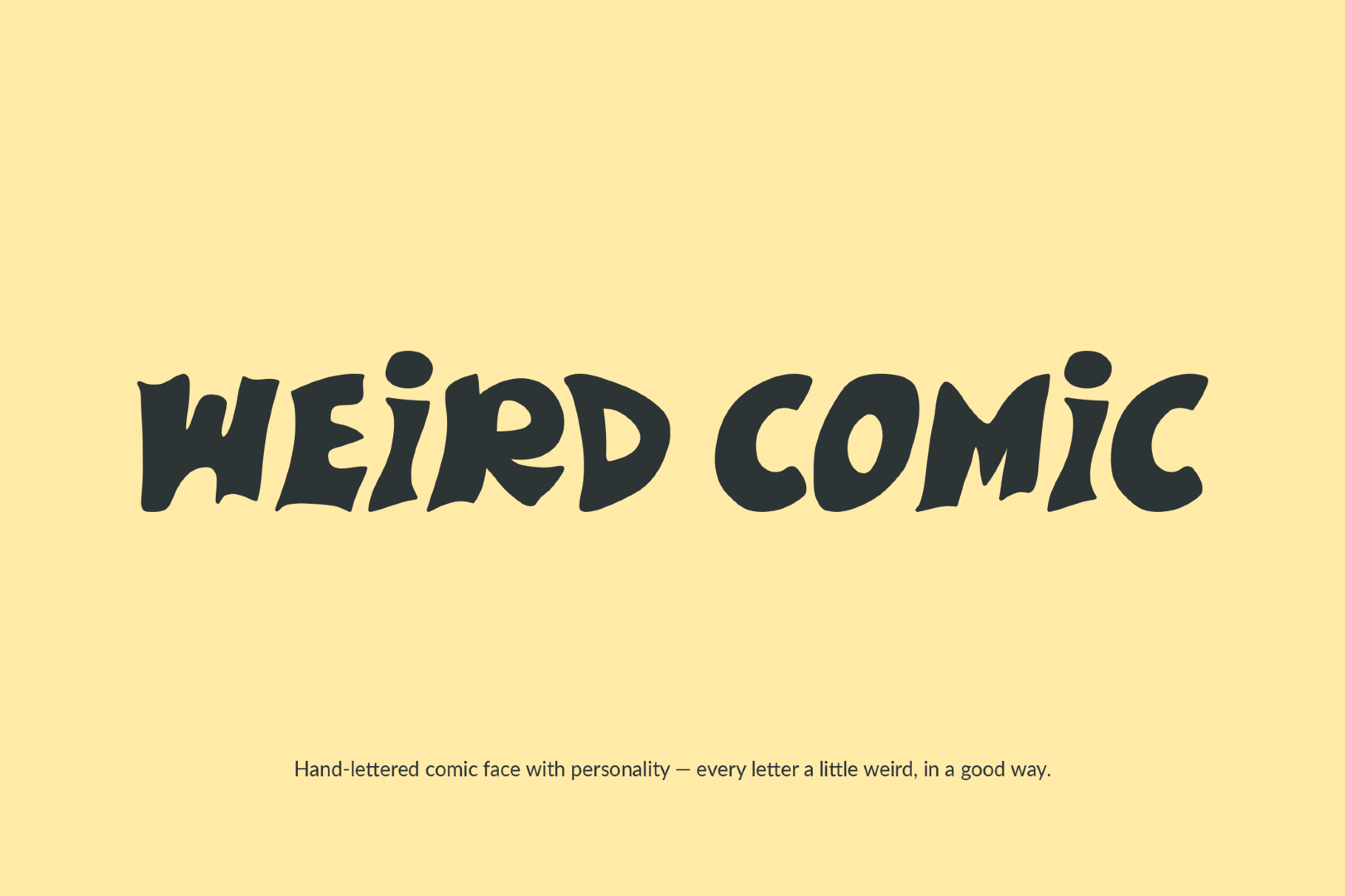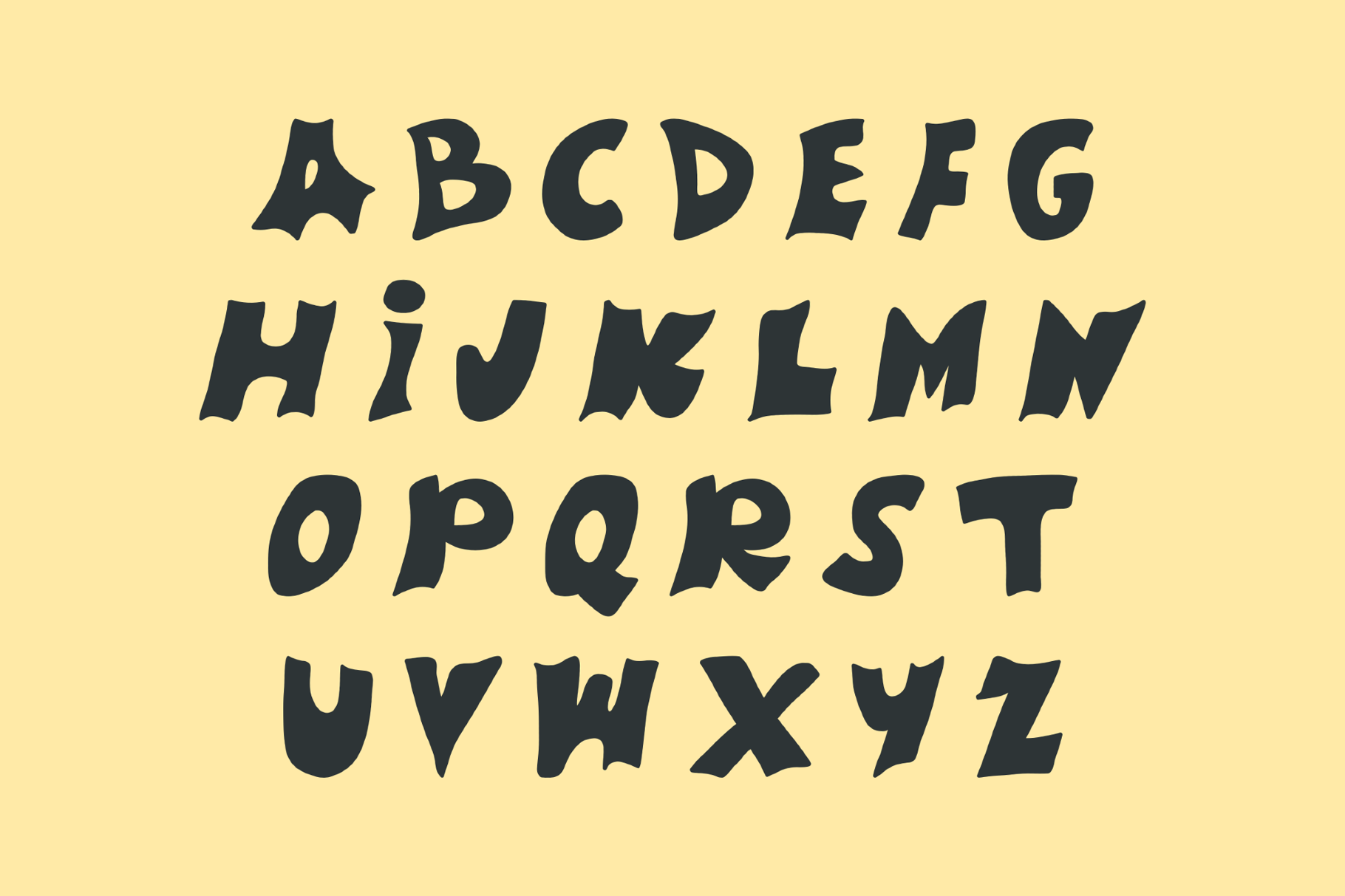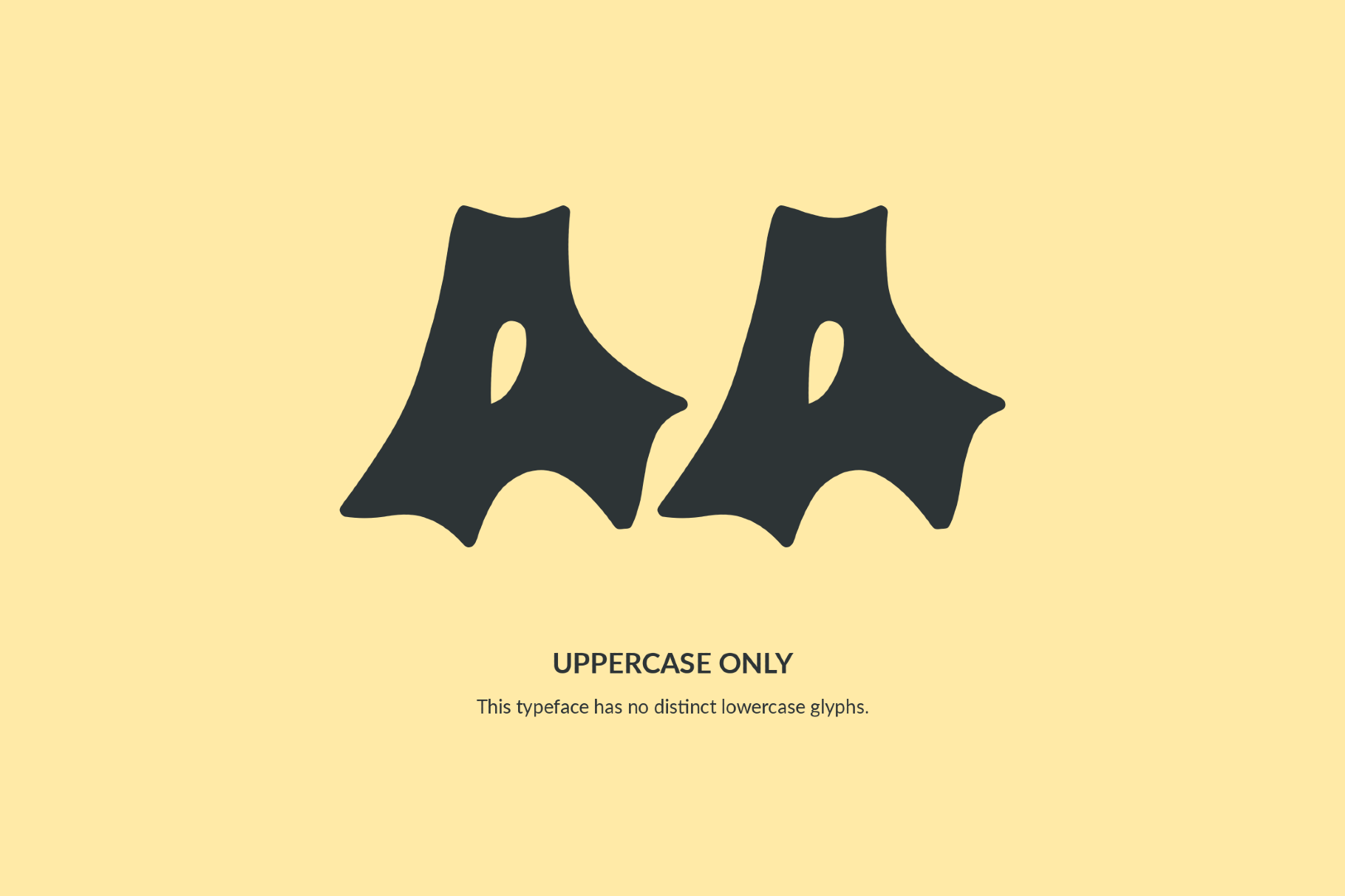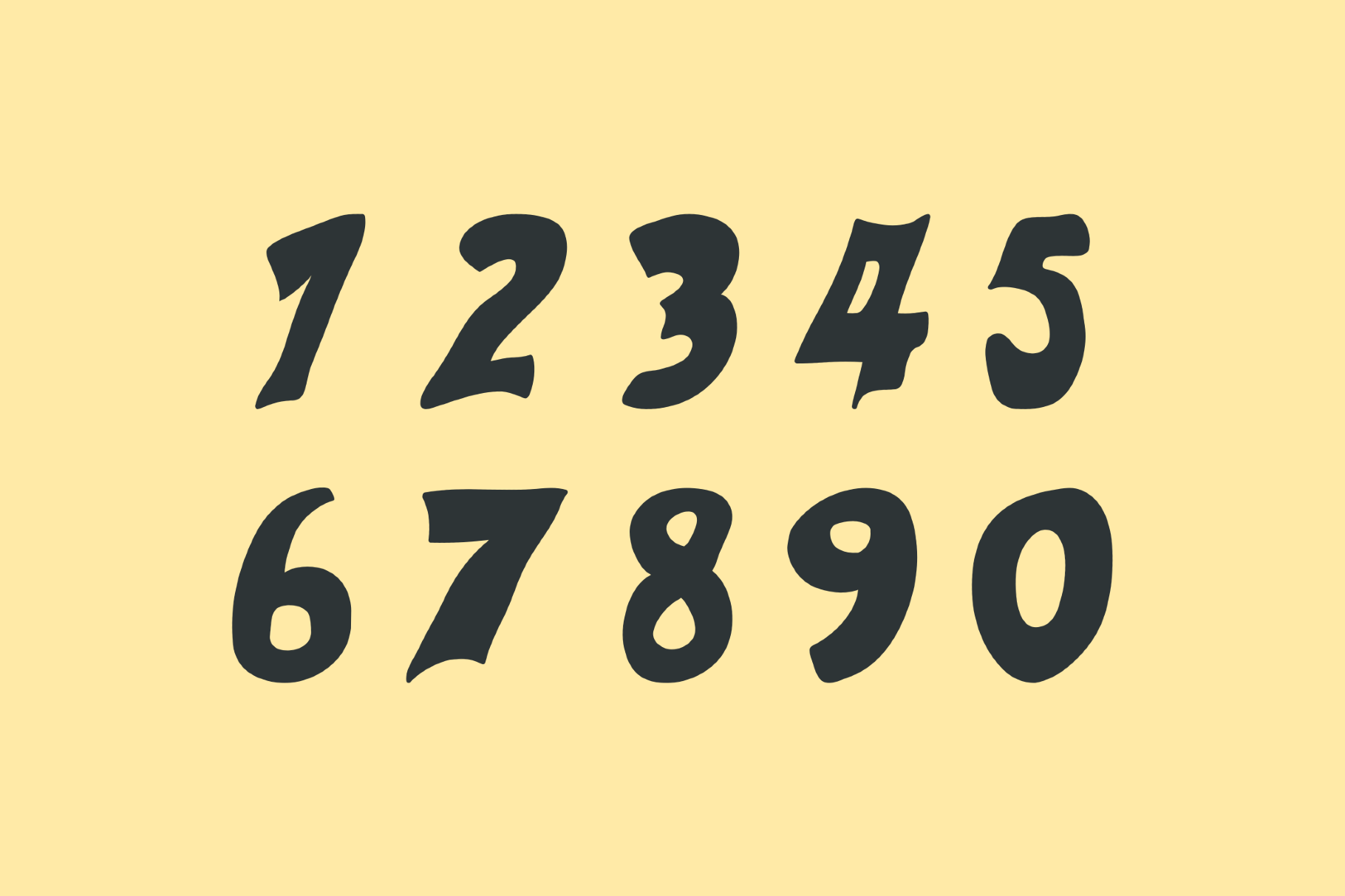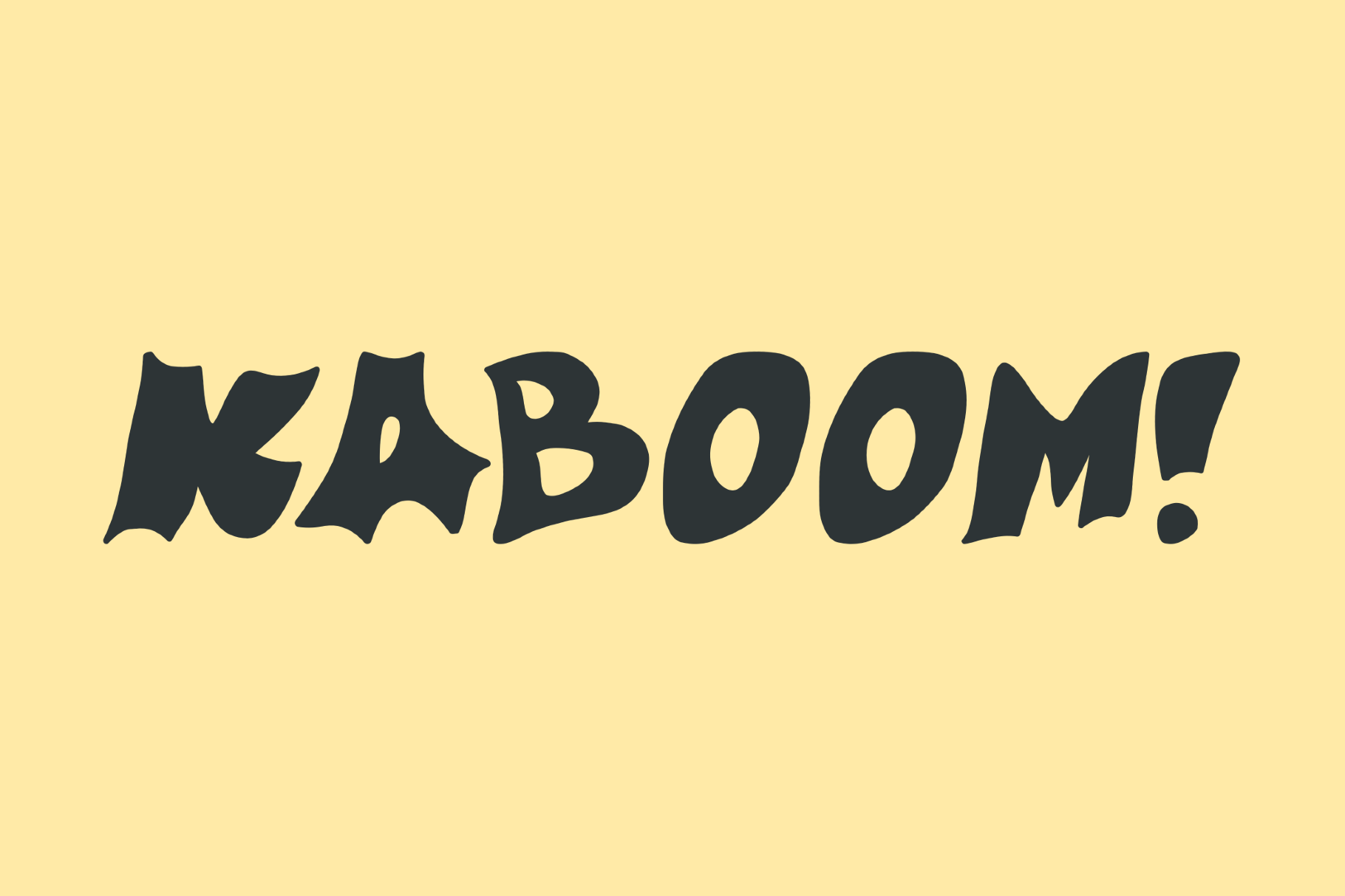
Weird Comic Font
Weird Comic is a warped comic font with swollen strokes and a rubbery silhouette. It brings to mind underground comix, monster-magazine covers and hand-lettered title cards from 1970s Saturday matinees. It is great for poster headings, zine covers, sticker packs, game art, merch graphics, packaging and playful branding.
- Uppercase letters